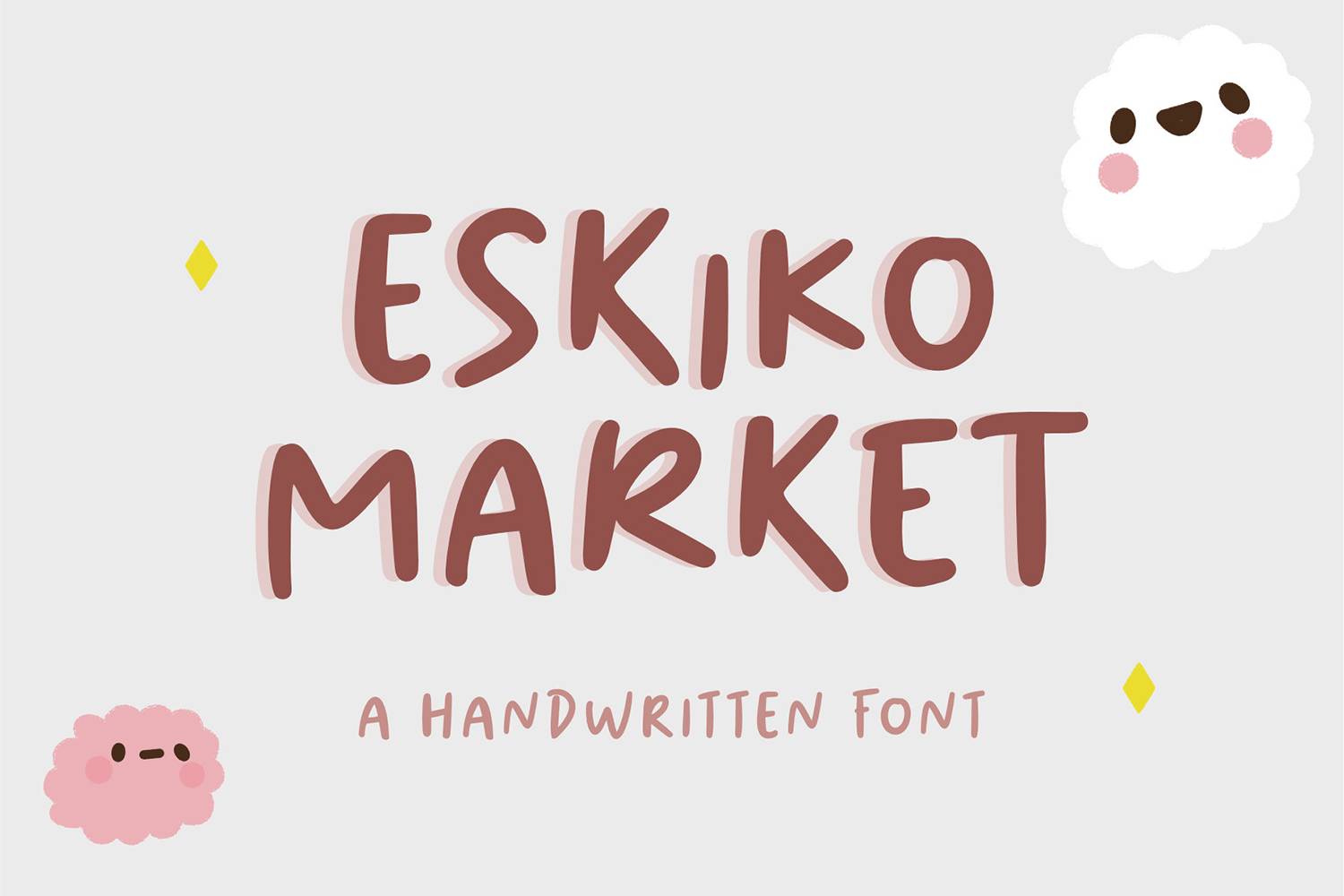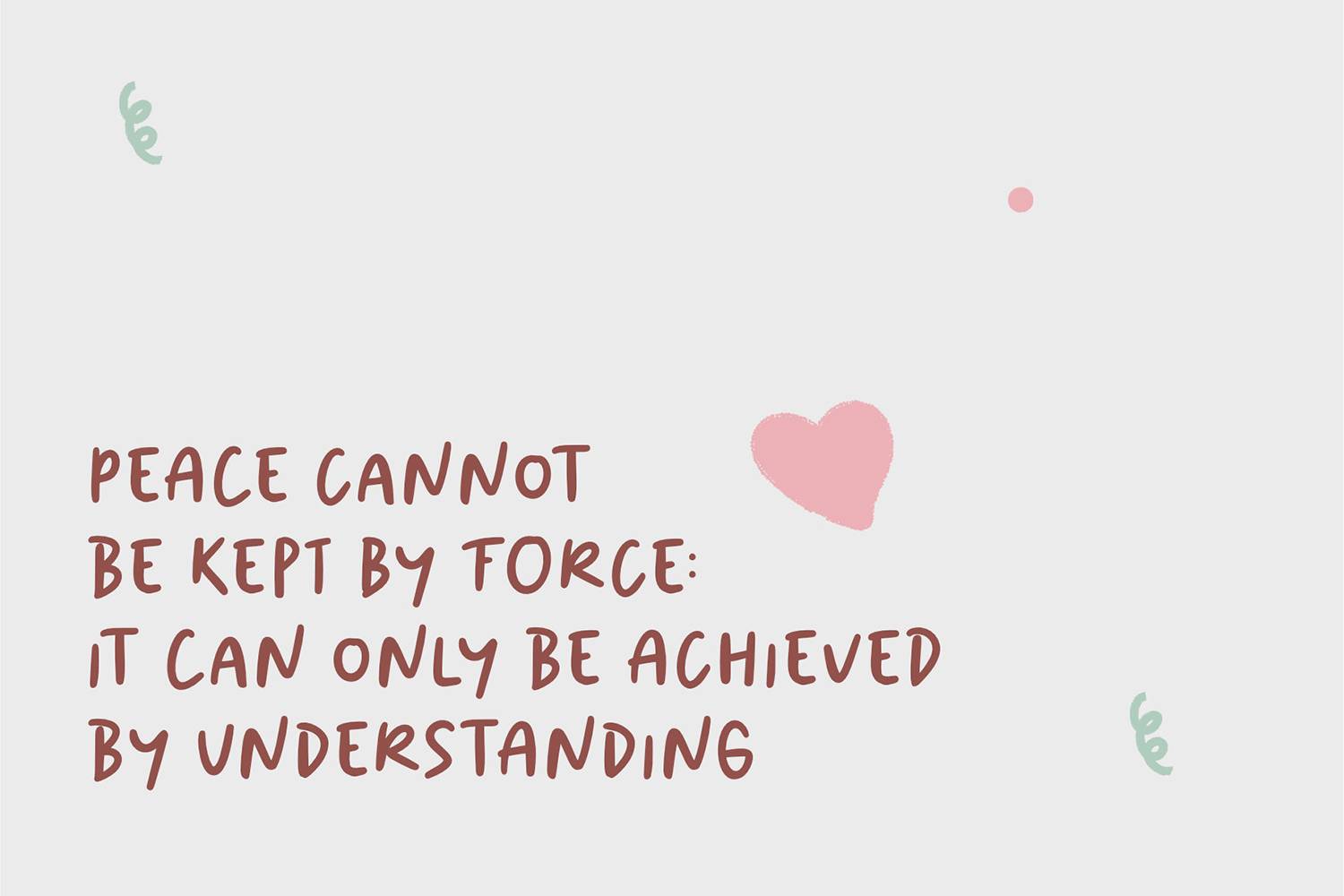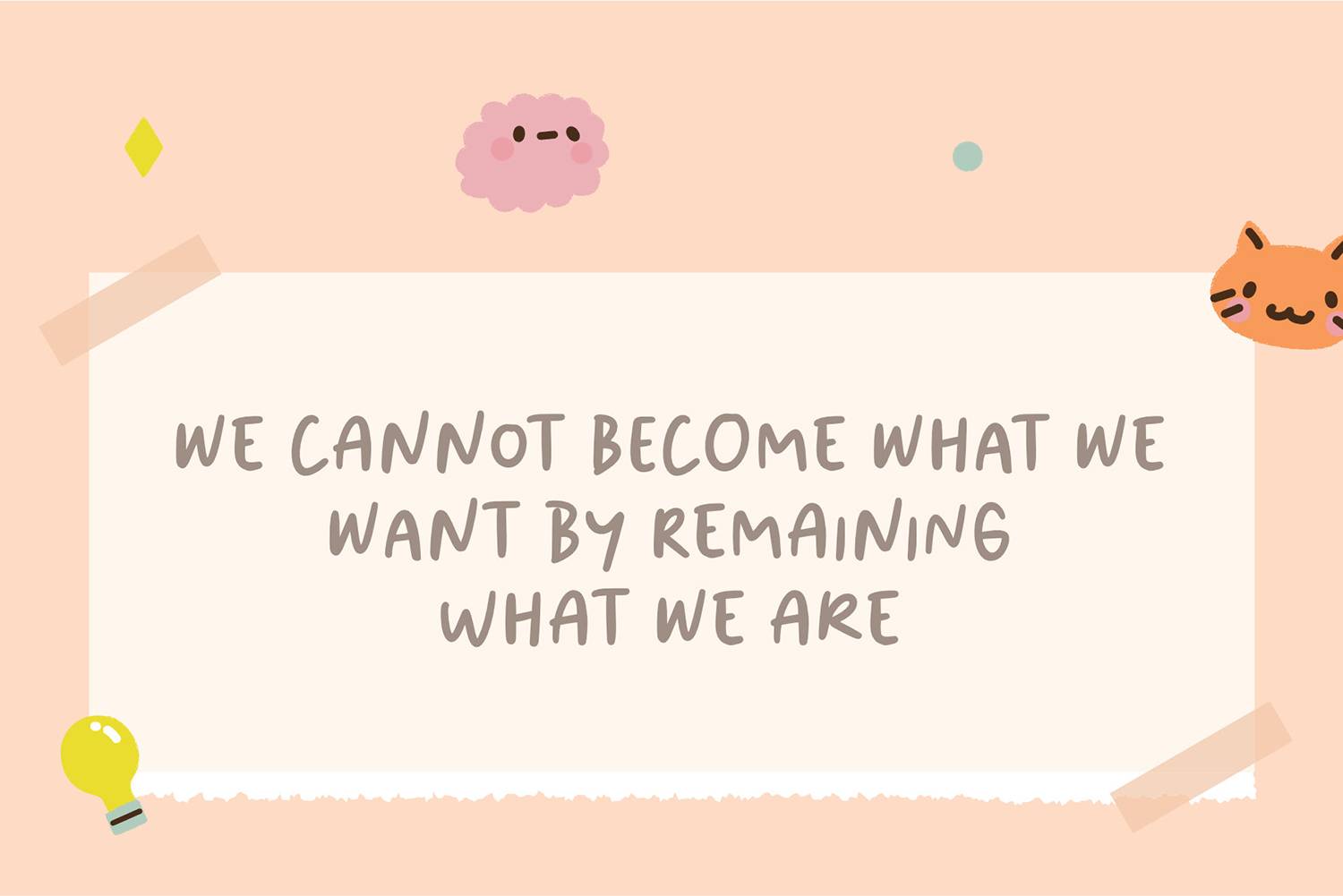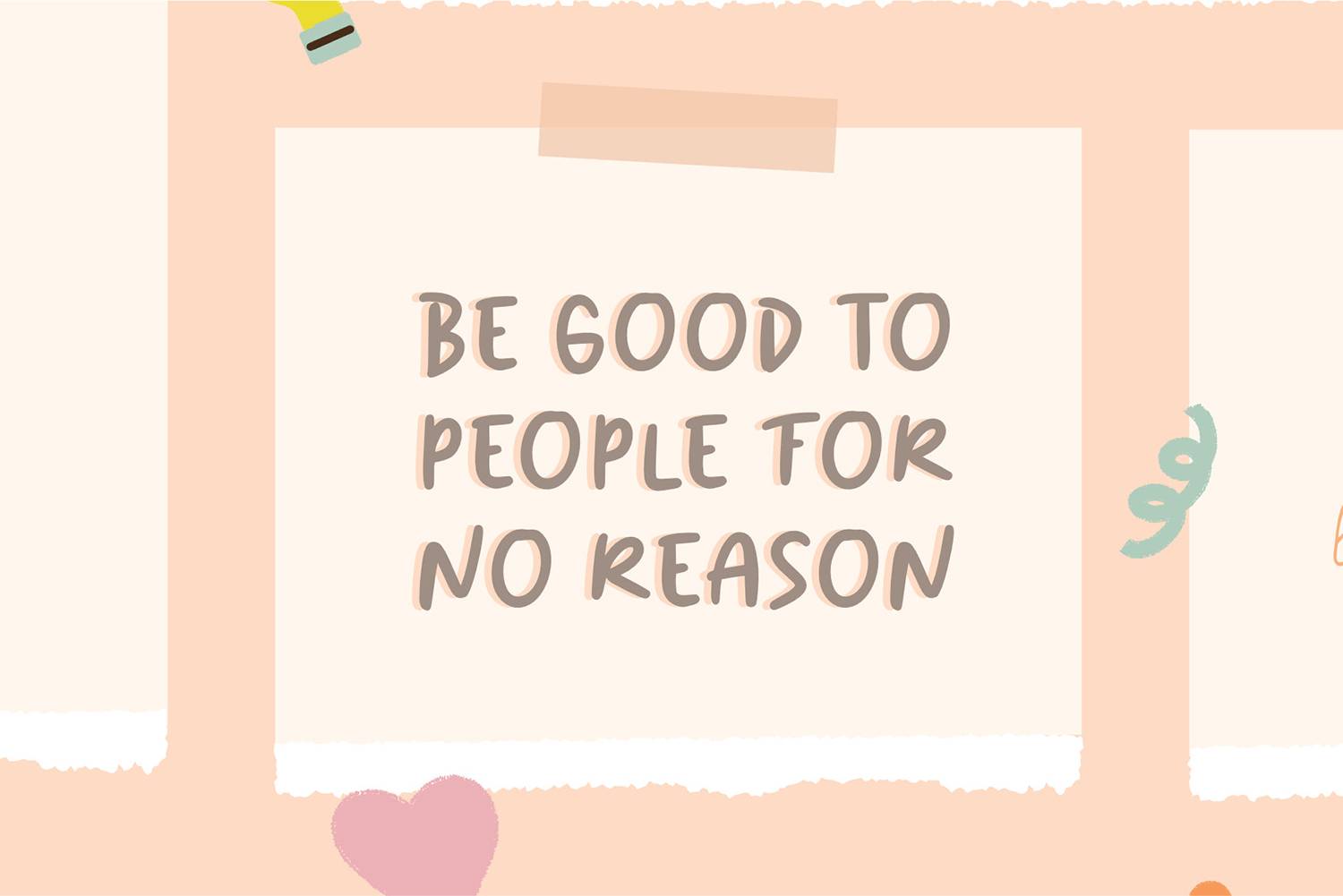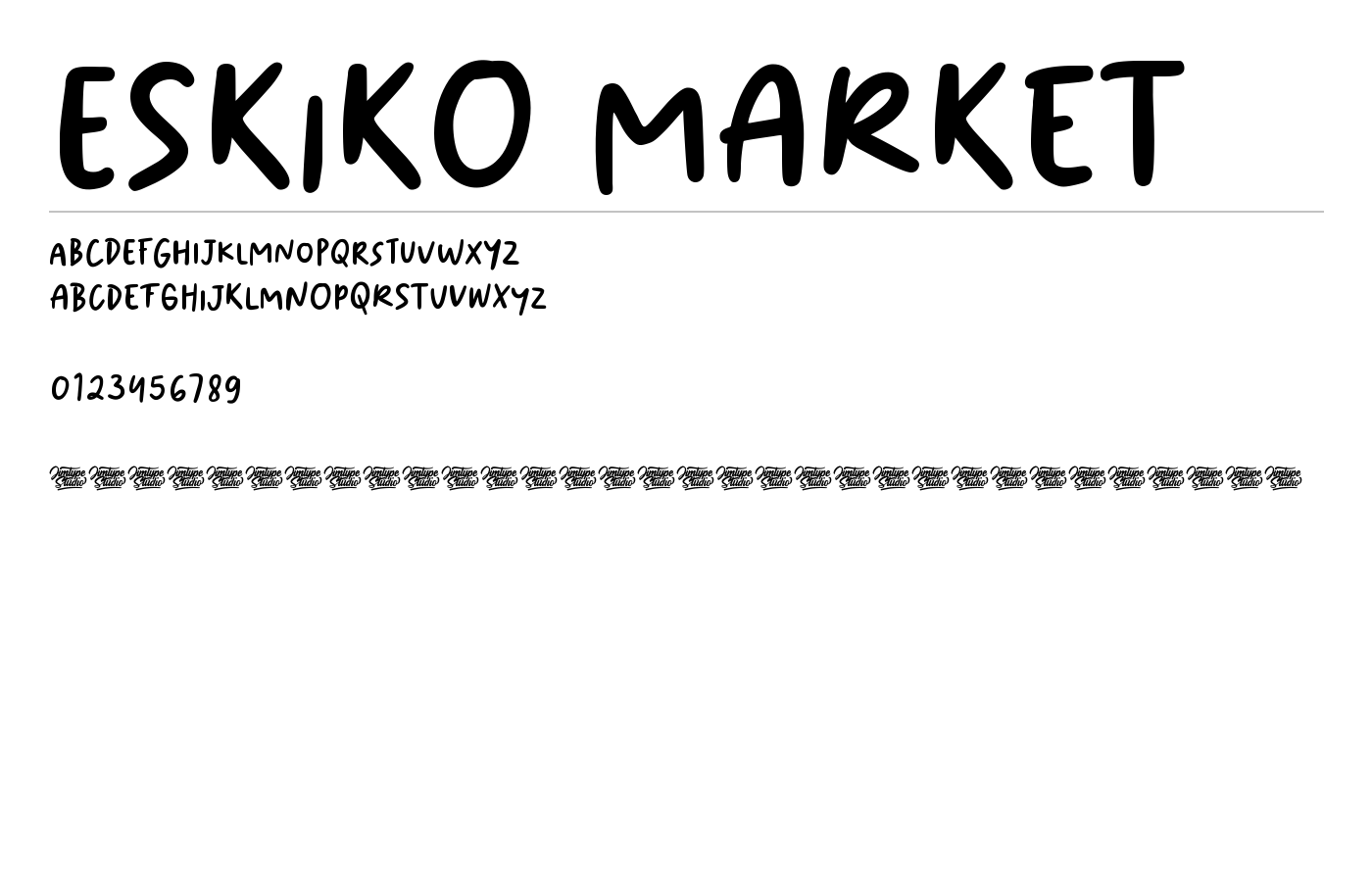
Eskiko Market is a playful and friendly sans serif font with a hand-drawn, casual style. Its rounded, slightly irregular letterforms and moderate width give it an approachable, informal feel that works well for creative projects, branding, and headlines aiming to convey warmth and personality. This font shines in settings like packaging, children's materials, and relaxed editorial designs where a cheerful, personal touch is needed.
Eskiko Market Font
About Eskiko Market Font
| Font family | Eskiko Market Font |
| Designer | Jimtype Studio |